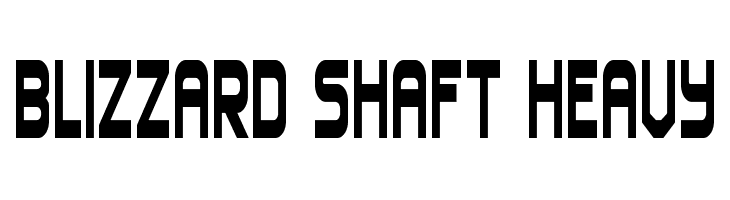
• Blizzard Shaft Heavy schriftart
A bold, geometric font with strong, angular lines and a modern aesthetic.
• Blizzard Shaft Heavy SuperItal schriftart
A bold, slanted font with a dynamic and modern style.
• Blizzard Shaft Outline SemItal schriftart
A bold, outlined, semi-italic font with a modern, dynamic style.
• Blizzard Shaft Outline SuperIt schriftart
A bold, slanted outline font with sharp, angular edges.